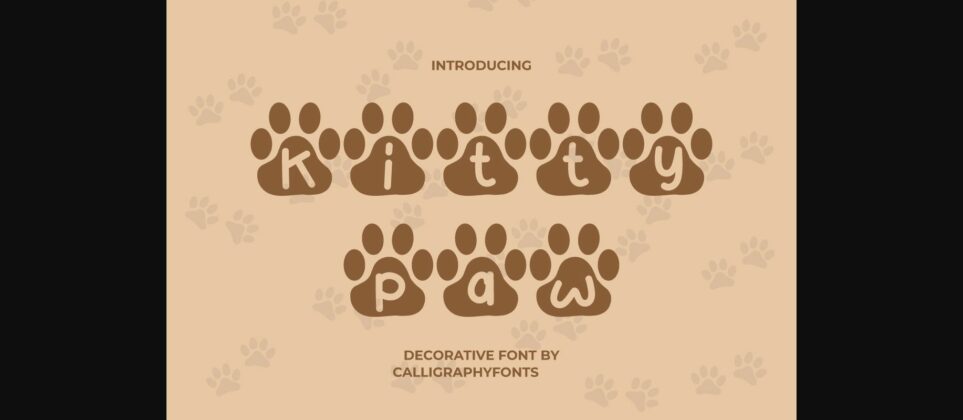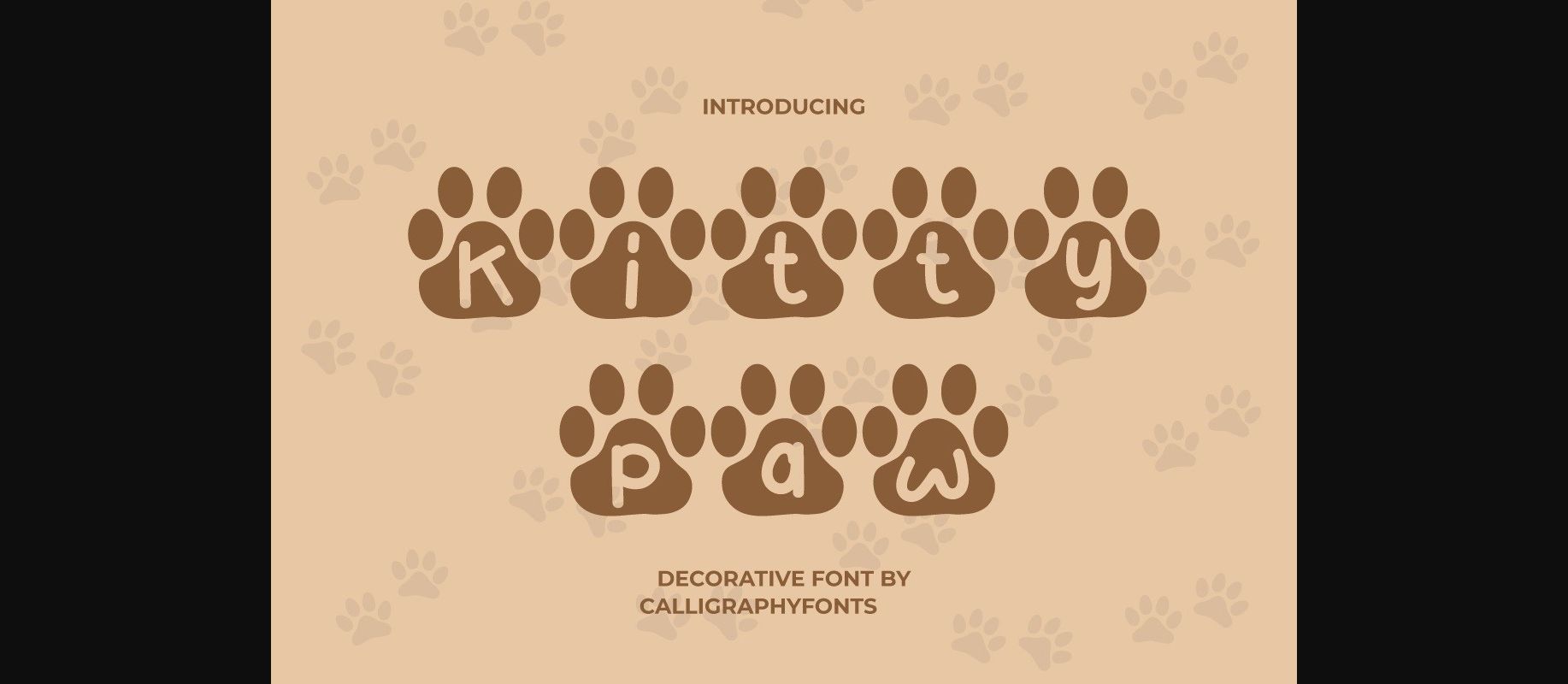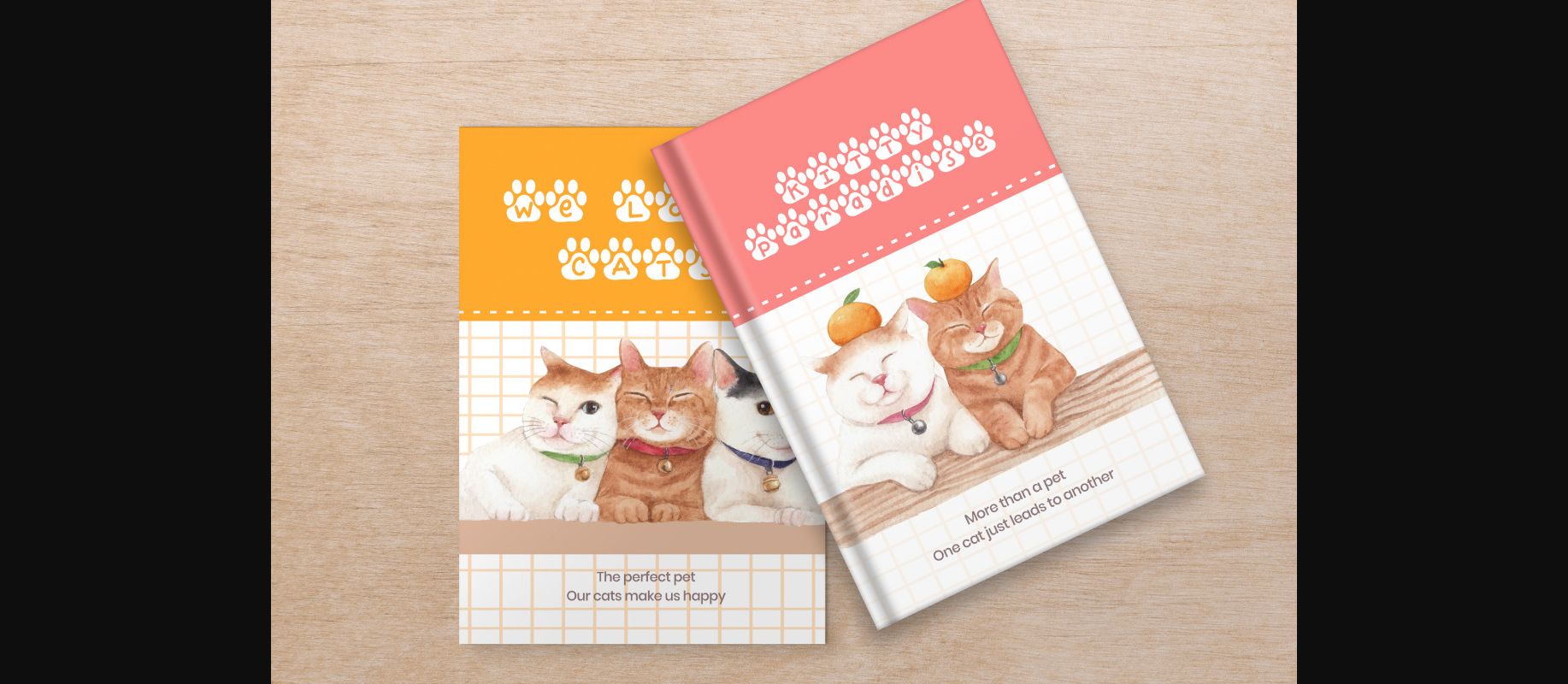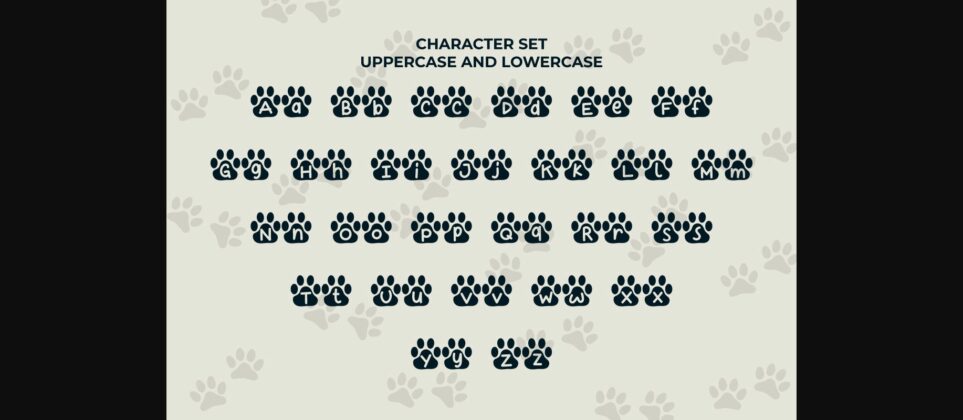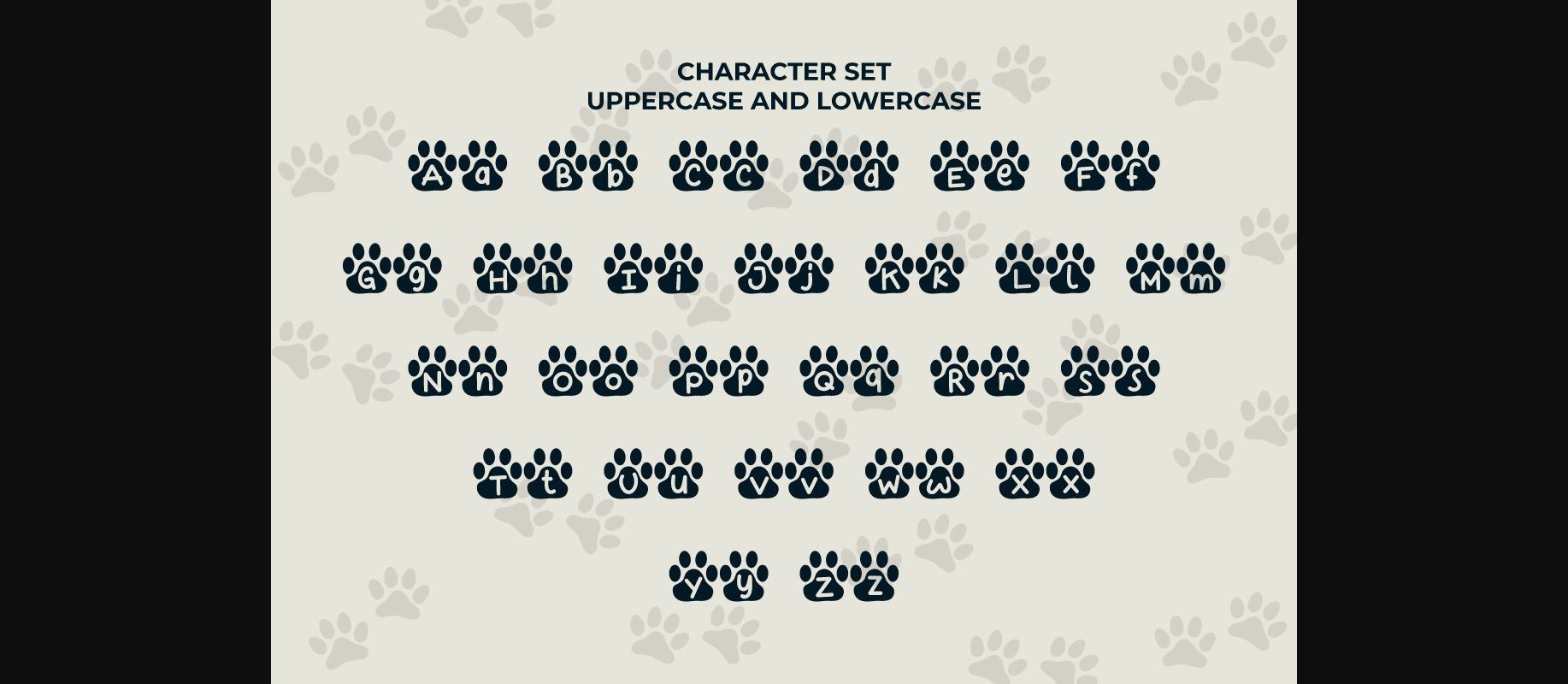
About Kitty Paw Font
Kitty Paw is a cool and uniquely designed decorative font. It works incredibly well on crafting designs or decorations related to kids or games. The only limit is your imagination.